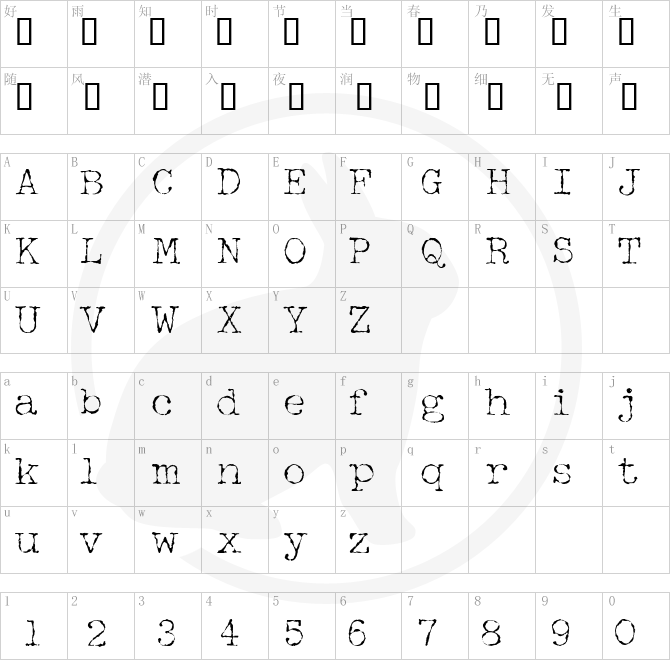
- Font Name:Halbstarke
- Full Name:Halbstarke Pica
Halbstarke-Pica.ttf is a very beautiful artistic font, Halbstarke-Pica.ttf is widely used in the design and printing of various books and pictures,Halbstarke-Pica.ttf has a strong visual impact,Halbstarke-Pica.ttf is a commonly used font in newspapers, magazines and books, and is used in posters, e-commerce Poster design, store design, logo design, font design and other fields.Halbstarke-Pica.